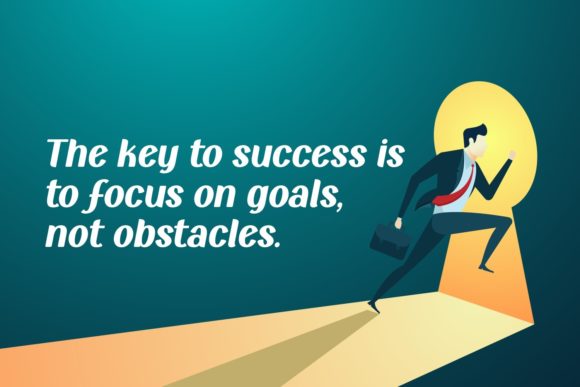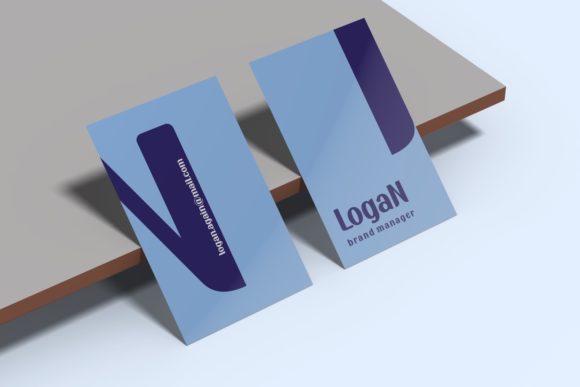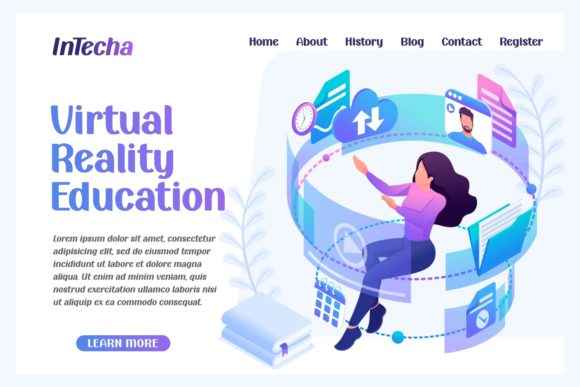
Introducing Focus on Goals Font: Elevate Your Designs with a Friendly and Fun Twist
In the world of design, the right font can make all the difference. It’s not just about conveying a message; it’s about evoking emotions, creating moods, and setting the tone for your brand or project. If you’re on the hunt for a typeface that embodies friendliness, fun, and casual sophistication, look no further than the Focus on Goals Font. This simple, adaptable, and cool display font is about to become your go-to for making each of your designs stand out in the best possible way.
The Essence of Focus on Goals Font
Focus on Goals is more than just a font; it’s a design companion that brings a unique blend of simplicity and charm. Its adaptability makes it perfect for a wide range of projects, from branding and advertising to personal crafts and digital content creation. Whether you’re working on a serious business project or a fun DIY craft, this font adjusts seamlessly to fit your needs.
Key Features of Focus on Goals Font
- Simplicity: At its core, Focus on Goals boasts a clean and straightforward design. This simplicity ensures that your message is always clear and easily readable, making it perfect for use in titles, headings, and short texts.
- Adaptability: One of the standout features of this font is its incredible versatility. It can effortlessly shift between formal and informal settings, making it an excellent choice for designers who work on a variety of projects.
- Cool Display: The font has a distinct cool factor that adds a modern touch to any design. Its display qualities make it particularly suitable for headlines, posters, and any project where you want to grab attention.
- Friendliness and Fun: What sets Focus on Goals apart is its inherently friendly and fun vibe. It’s the perfect typeface for projects that require a personal touch or aim to connect with the audience on a more casual level.
Use Cases for Focus on Goals Font
The applications for Focus on Goals are limitless, thanks to its versatile nature. Here are a few ideas to get you started:
- Branding: Use Focus on Goals to create memorable logos, business cards, or letterheads that speak to your audience in a friendly and approachable way.
- Digital Content: Enhance your blog posts, social media graphics, and website headers with a touch of personality and modernity.
- Advertising: Make your ads stand out with eye-catching headlines and descriptions that capture the essence of your product or service.
- Crafts and DIY Projects: Add a professional yet playful touch to your handmade goods, such as customized t-shirts, mugs, and greeting cards.
Tips for Maximizing Focus on Goals Font
To get the most out of Focus on Goals, consider the following tips:
- Experiment with Sizes: While it’s designed as a display font, Focus on Goals can also work well in smaller sizes for body text, especially in digital formats.
- Play with Colors: Don’t be afraid to try out different colors and gradients. The font’s adaptability makes it easy to match with a wide range of palettes.
- Mix and Match: Combine Focus on Goals with other fonts for interesting contrasts. Its simplicity makes it a great base that can complement more ornate typefaces.
| Font Name | Focus on Goals Font |
| Author | Rizkky (7NTypes) |
Focus on Goals Font is a game-changer for designers and crafters looking for a typeface that combines simplicity, adaptability, and a cool, friendly vibe. Its wide range of applications and ease of use make it an invaluable tool in your design arsenal. Whether you’re creating professional branding materials or fun DIY projects, Focus on Goals is sure to elevate your designs and connect with your audience on a more personal level. So why wait? Dive into the world of possibilities with Focus on Goals Font and watch your designs transform in the most delightful way.